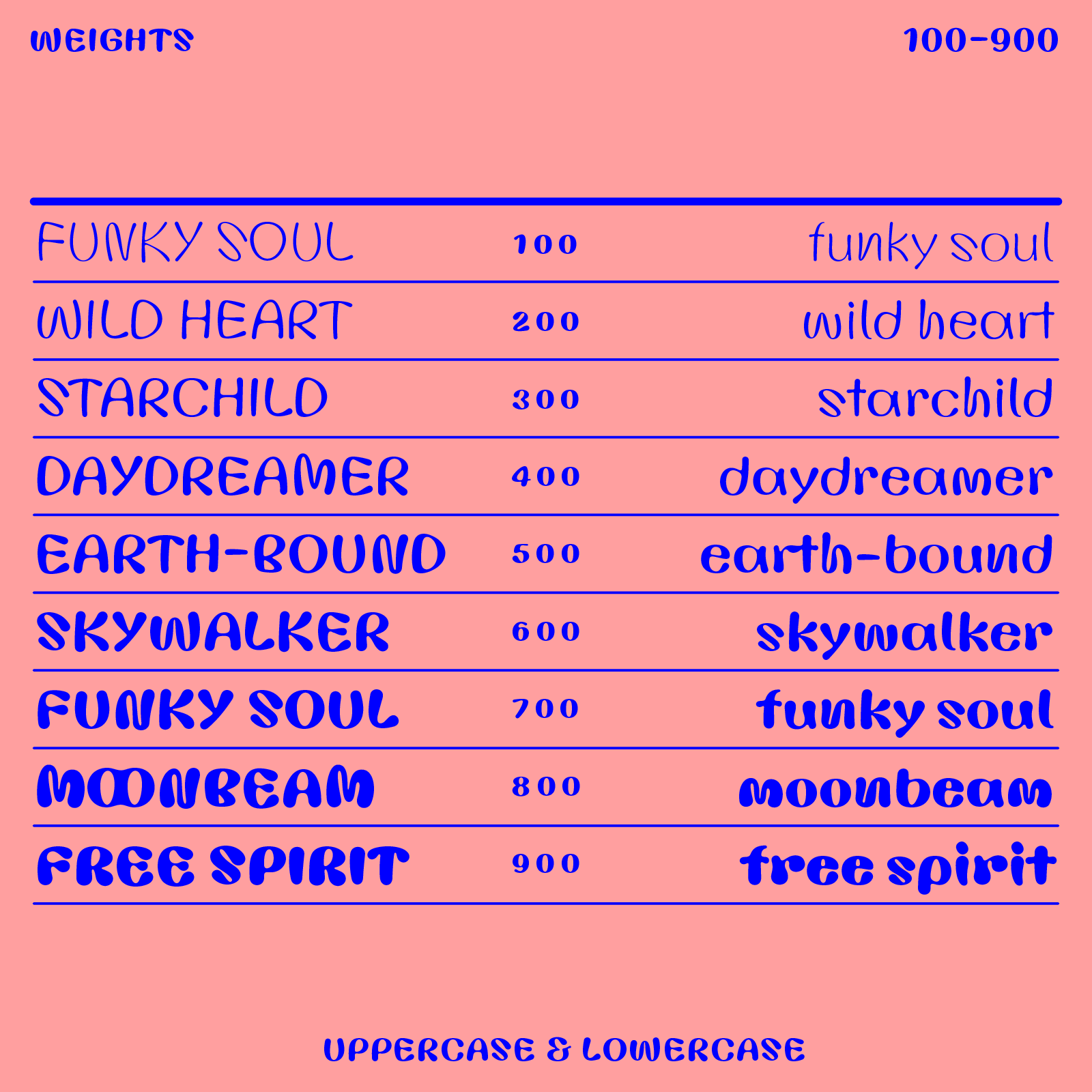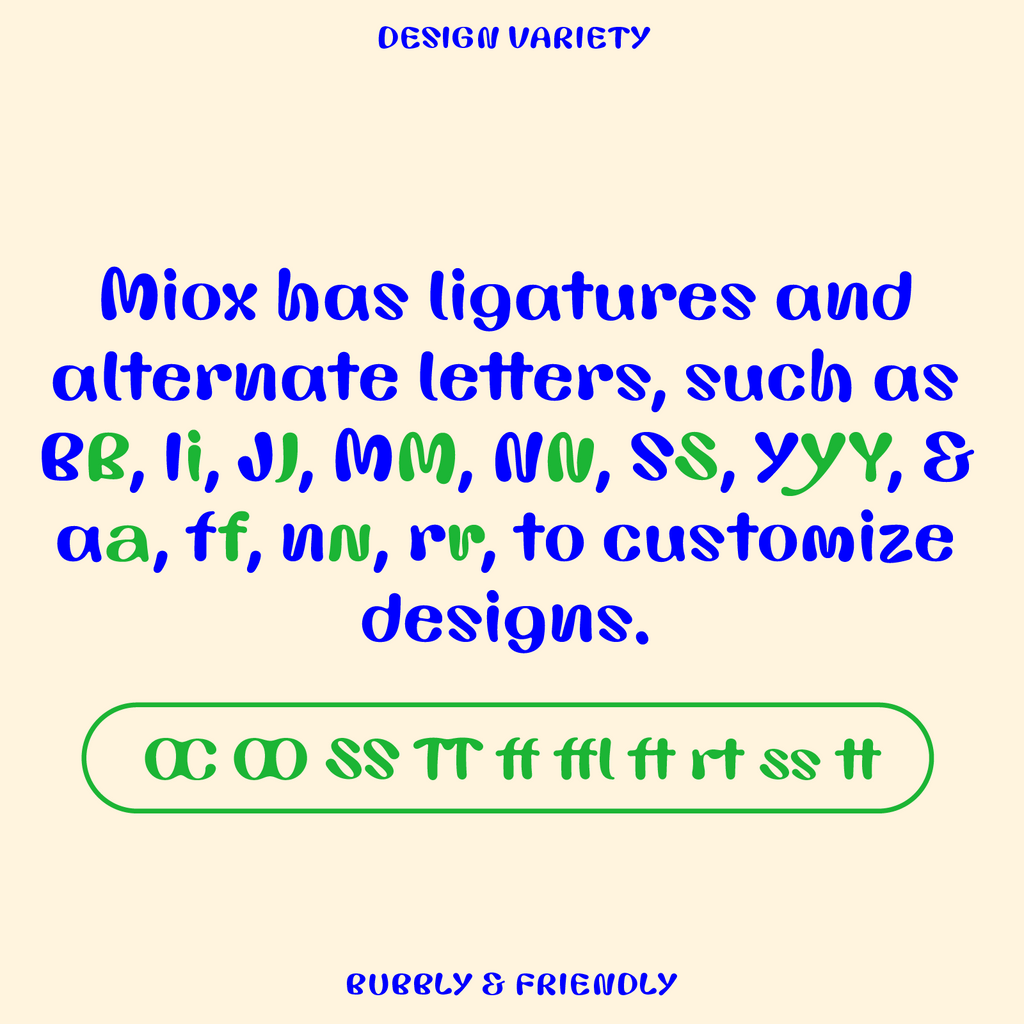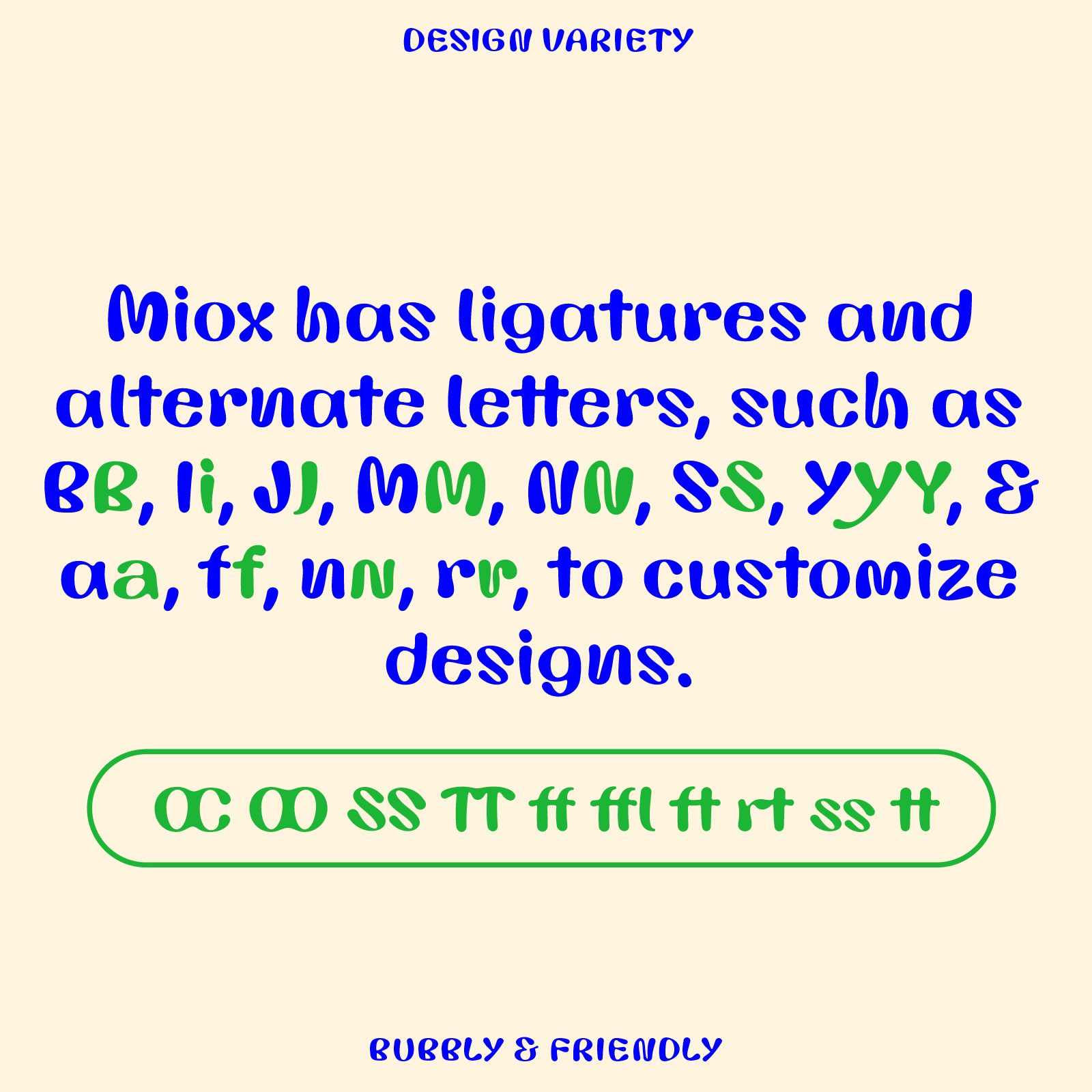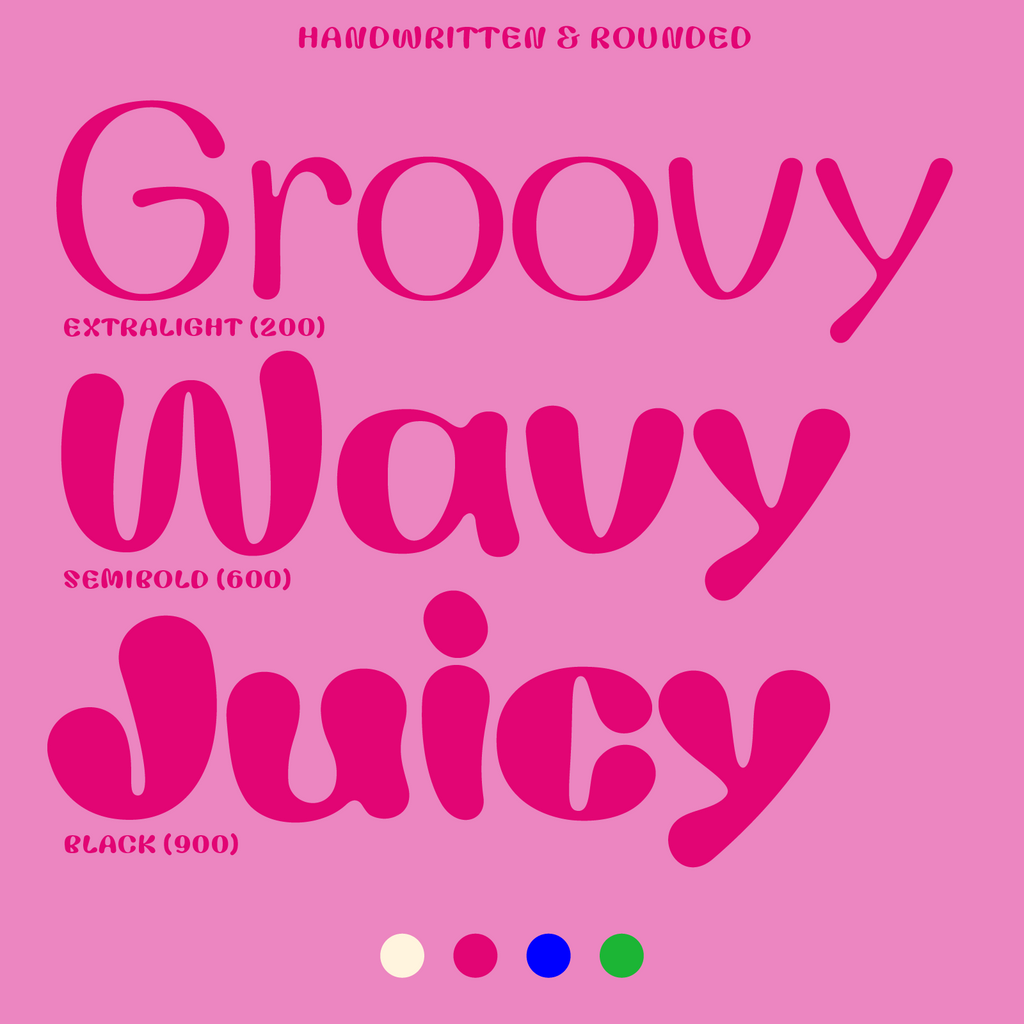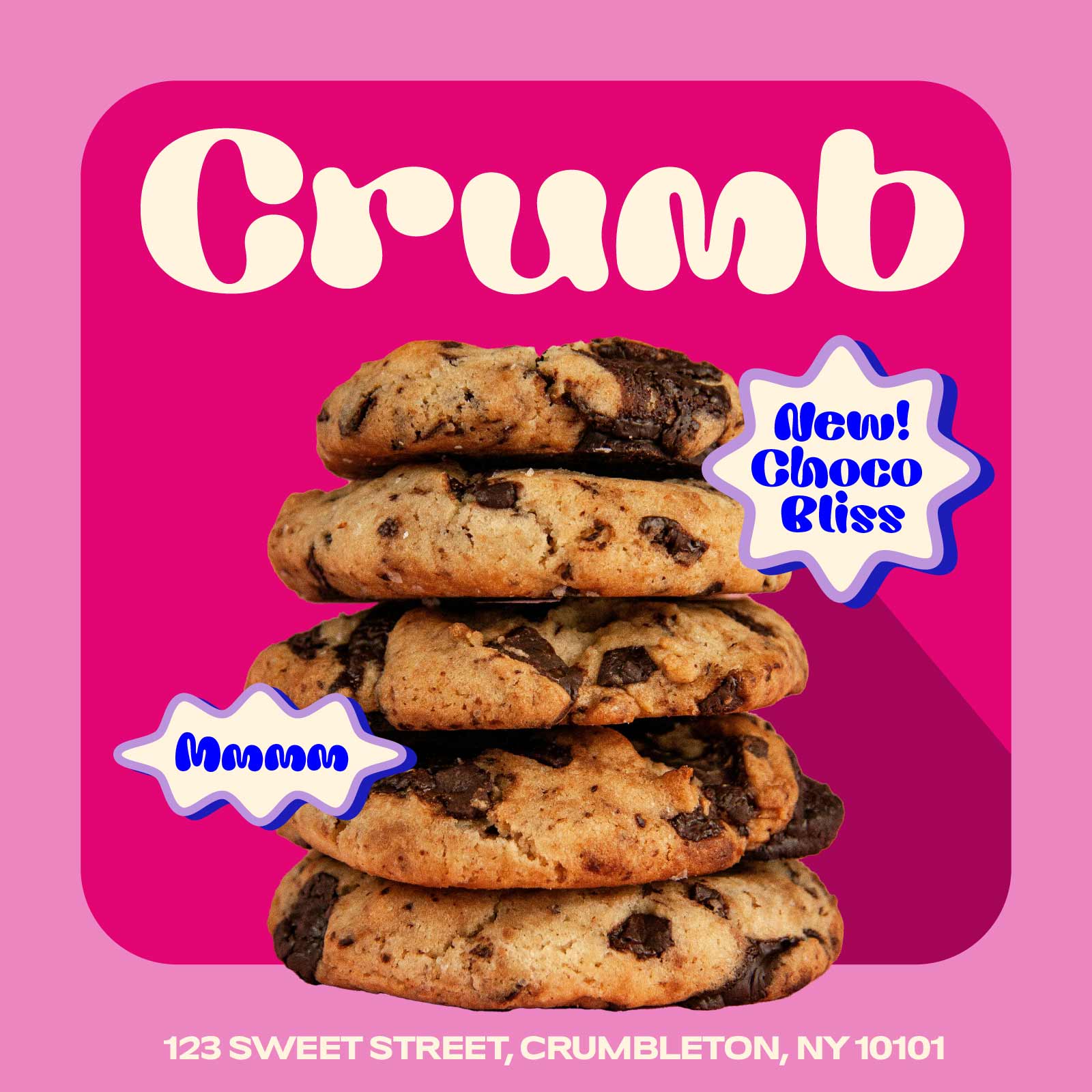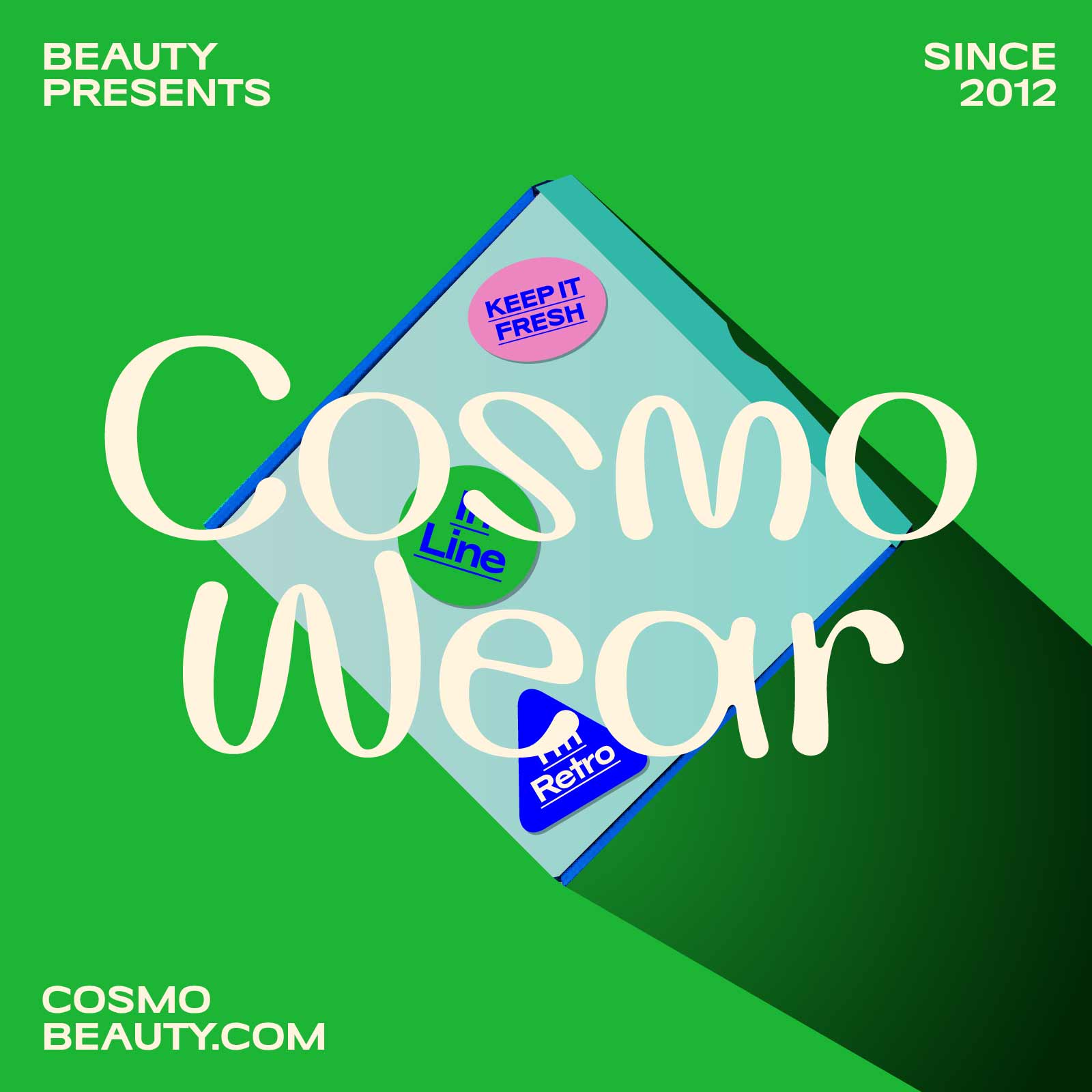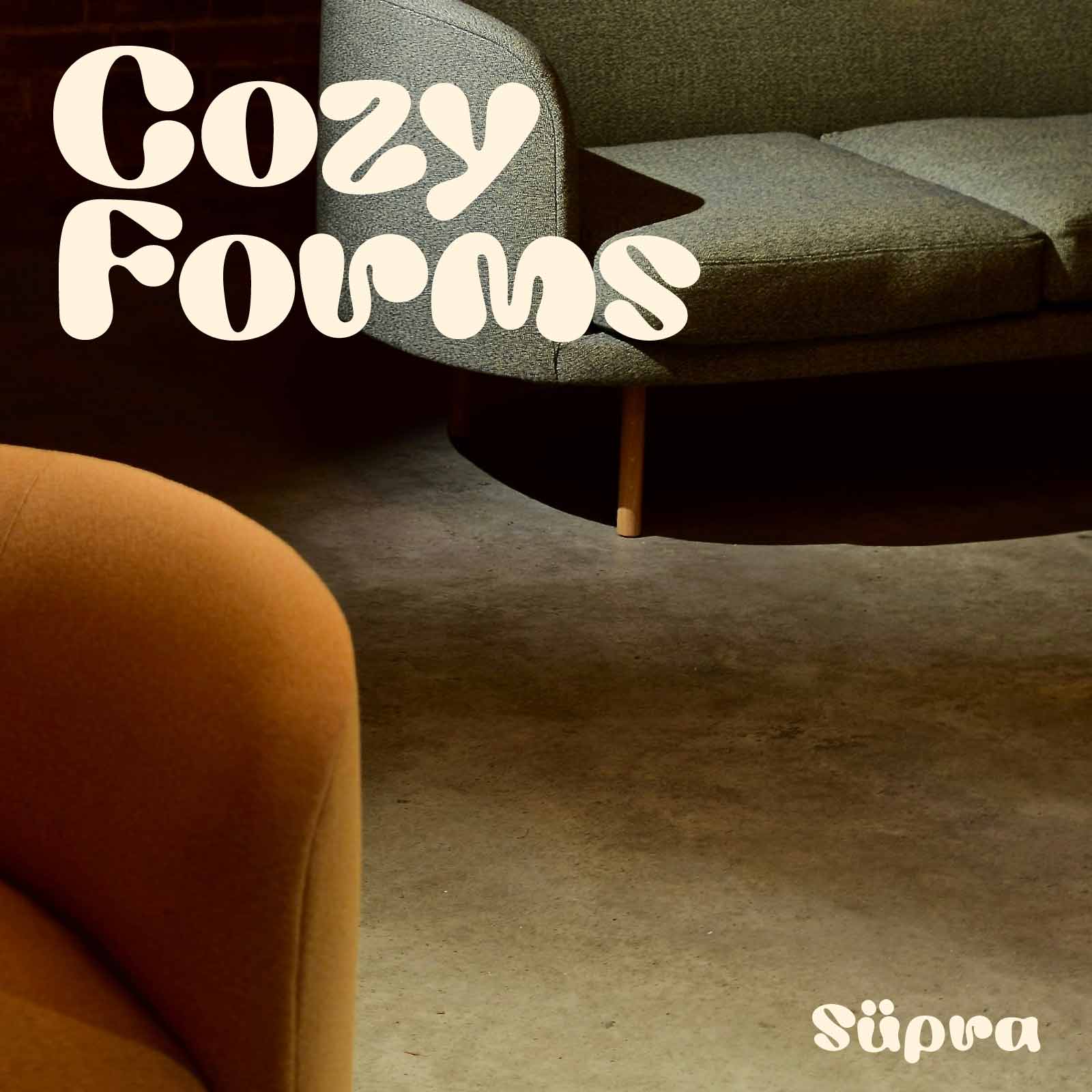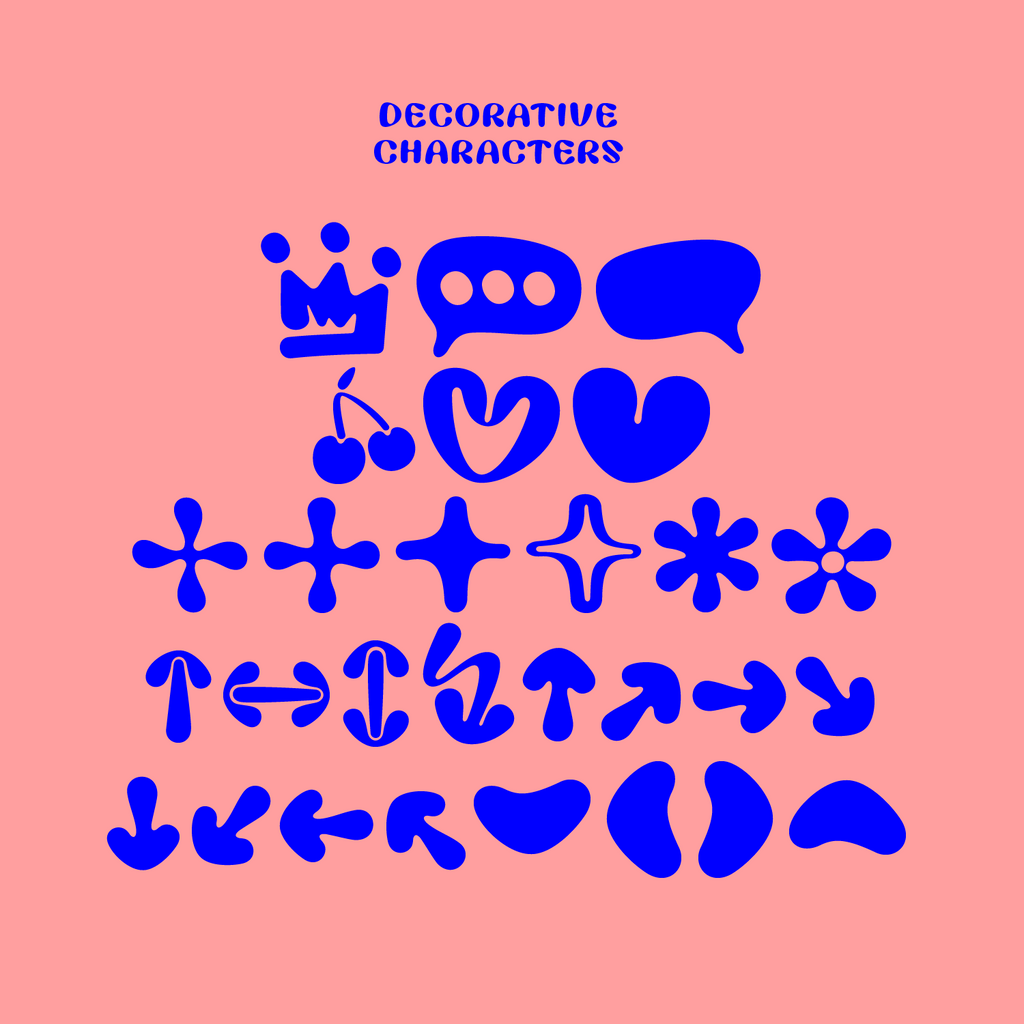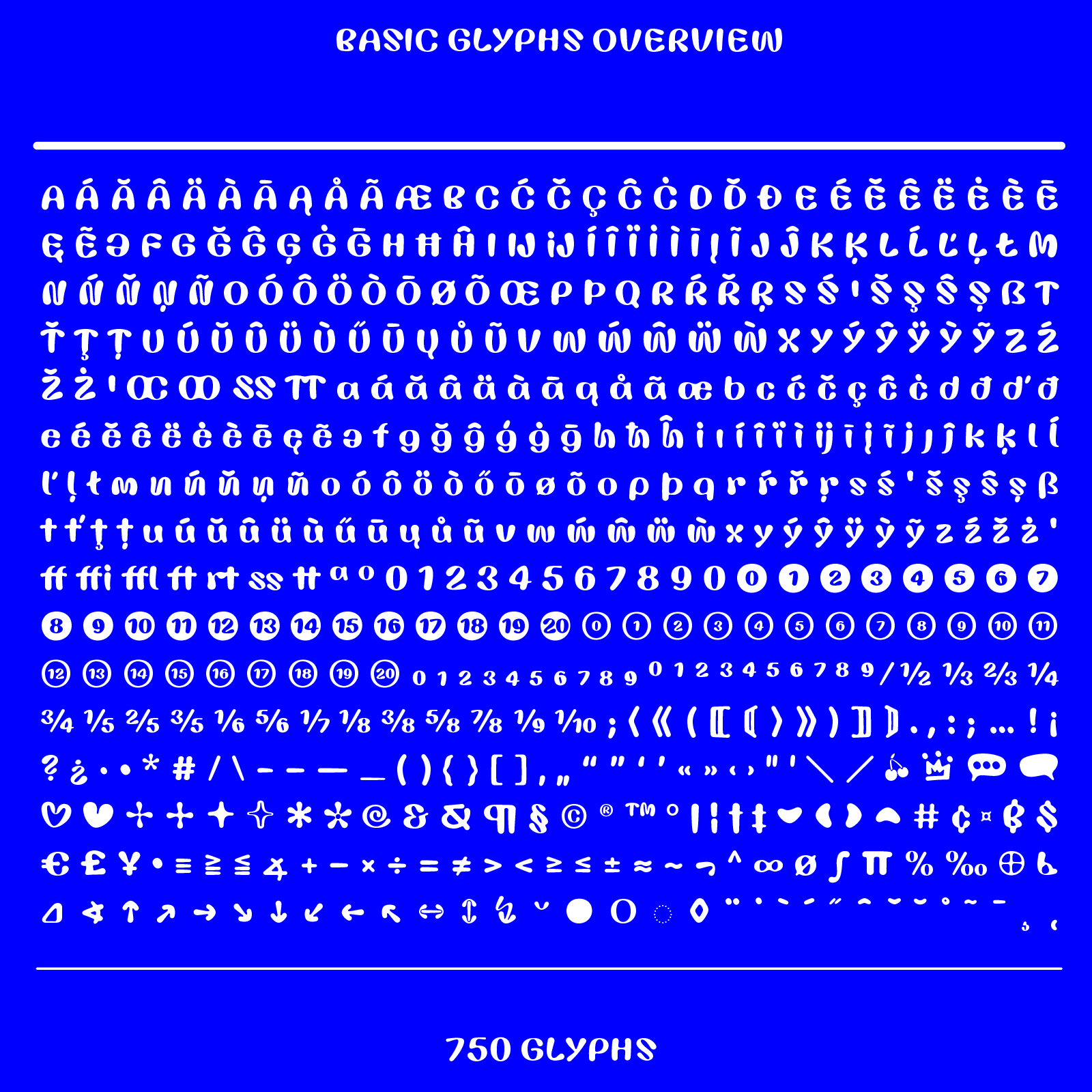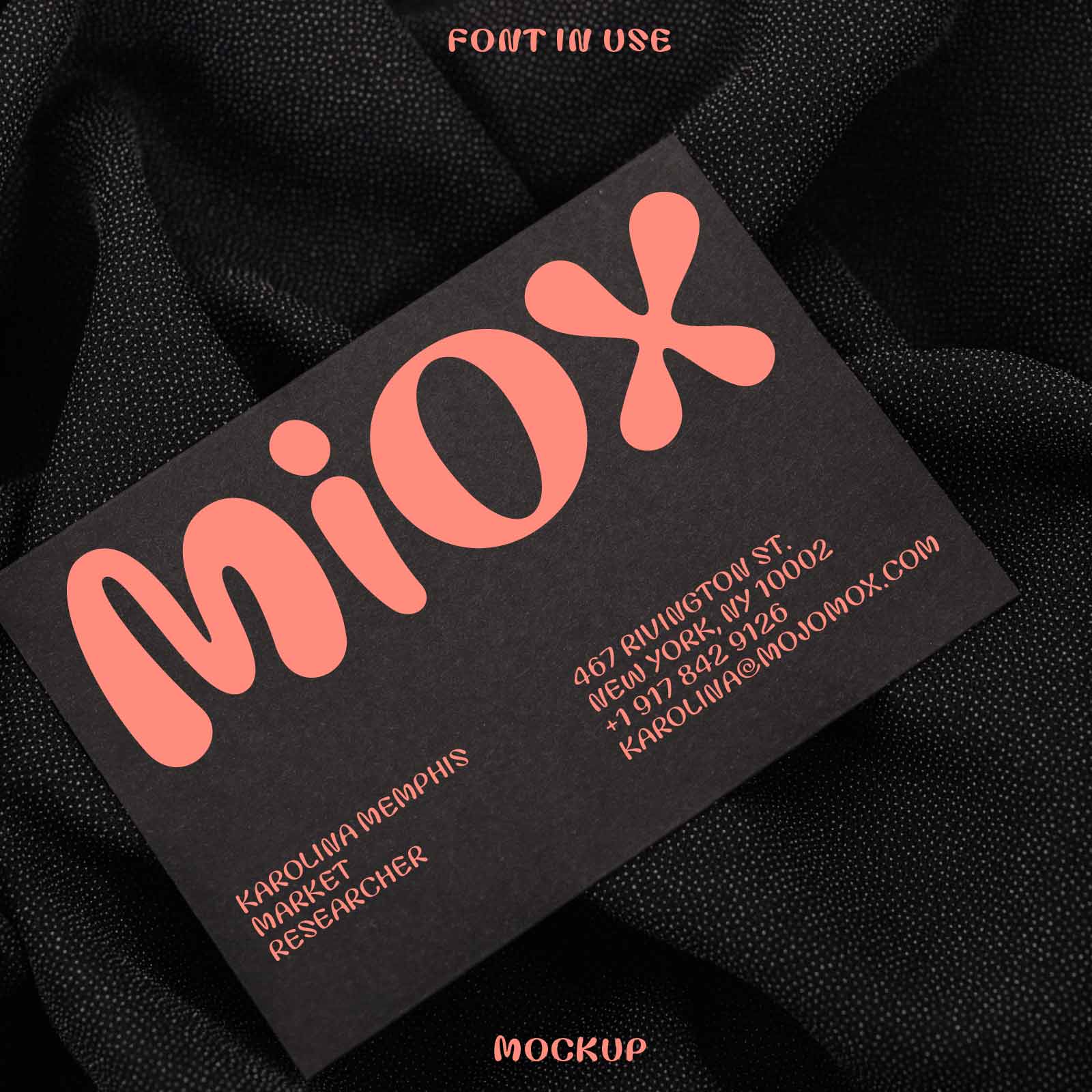
Miox, groovy font
Miox—Wobbly Groovy Bubble Font, Handwritten
Chunky bubble font with an ink-like feel in lighter weights and a 70s-inspired vibe in bolder styles, Miox is the go-to groovy font for playful, retro-modern branding. With its rounded, bubbly forms and handwritten touch, Miox brings a friendly style to logos, titles, and short text snippets.
Design notes
Most bubble fonts only come bold, so Miox was designed in lighter weights too. Its thick ink style is at its best in 800 and 900.
Hand-drawn letters that lean and sit on an uneven baseline. The J and S curl at the ends and the Q has a hooked tail.
Thin and Light taper like a brush; from Bold up the strokes fill out and nearly touch. Bakeries, sweet shops, beauty brands and film titles.
Stylistic sets
Miox in detail
Works best for
Bakeries, sweet shops, cosy or retro furniture, playful jewellery, fresh beauty products, and film or music titles; logos, titles and short lines rather than long text.
Pairs with
Goji or nuido for the text that runs alongside it.
Design notes
• Handwritten, drawn freehand: letters lean and sit on an uneven baseline, so a word wobbles on purpose.
• The stroke swells and thins like a brush. Thin and Light taper to inked points; from Bold up the strokes fill out into full rounded blobs that nearly touch.
• Single-storey a and g, the g with an open hooked tail. Round dots on i and j. The J and S curl at the ends, the Q has a hooked tail, the & is one looping curl.
• The 1 has a long flag, the 3 and 5 have open bowls, and a slashed zero is available.
• Five stylistic sets swap letters for alternate hand-drawn forms; a and the ampersand come in several styles.
Family
Variable font, weight axis wght 100-950, with 9 named weights: Thin, ExtraLight, Light, Regular, Medium, SemiBold, Bold, ExtraBold, Black. 764 glyphs, 503 characters, 5 stylistic sets.
Languages
Latin, Western European accents, Central European.
Figures
Proportional, tabular, slashed zero.
OpenType features
Case-sensitive punctuation, discretionary ligatures, fractions, standard ligatures, ordinals, proportional figures, tabular figures, slashed zero.
Ligatures
On by default: ff, fi, ffl, ft, tt, TT, ss. Discretionary, switched on by the designer: ffi, OO, OC, rt.